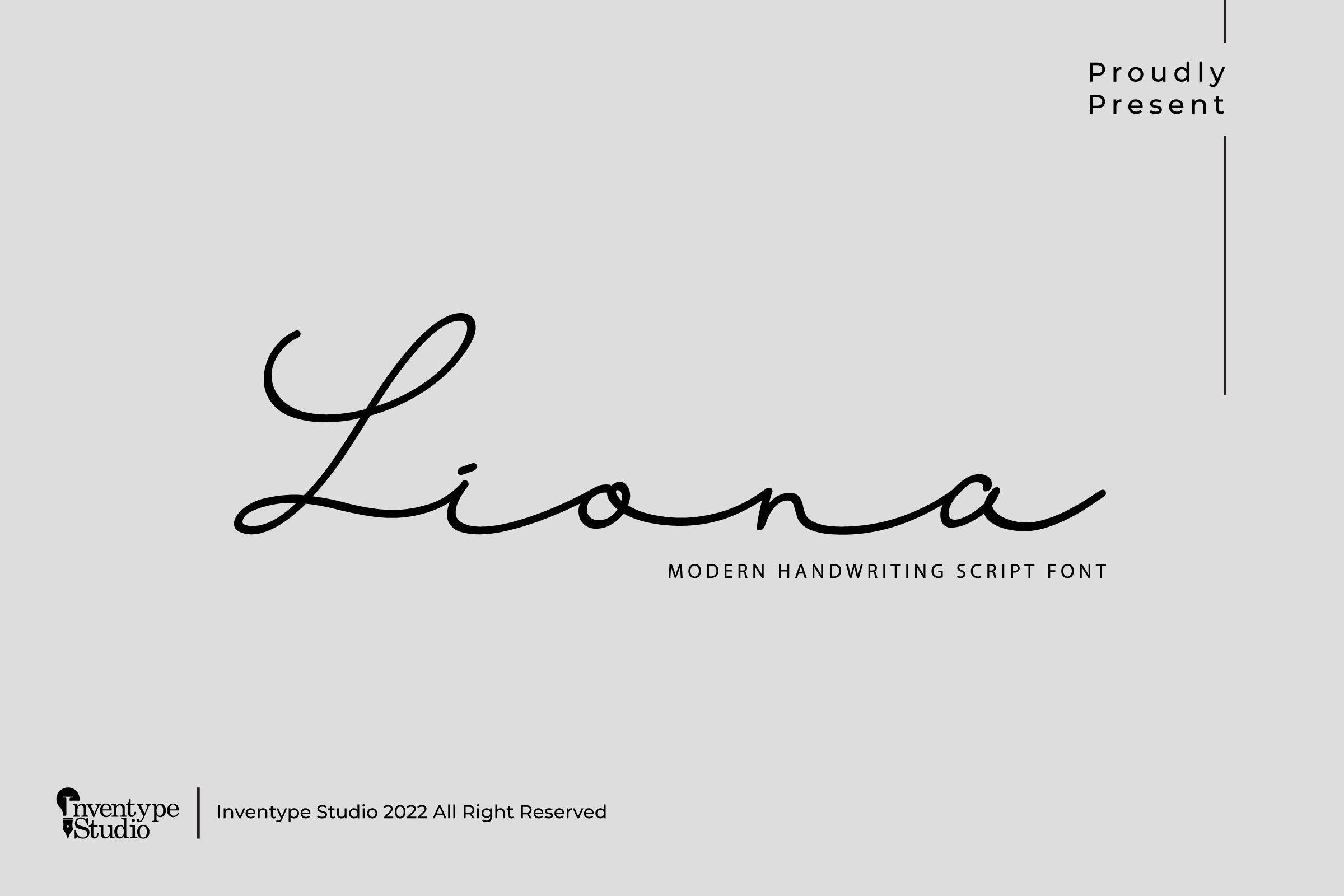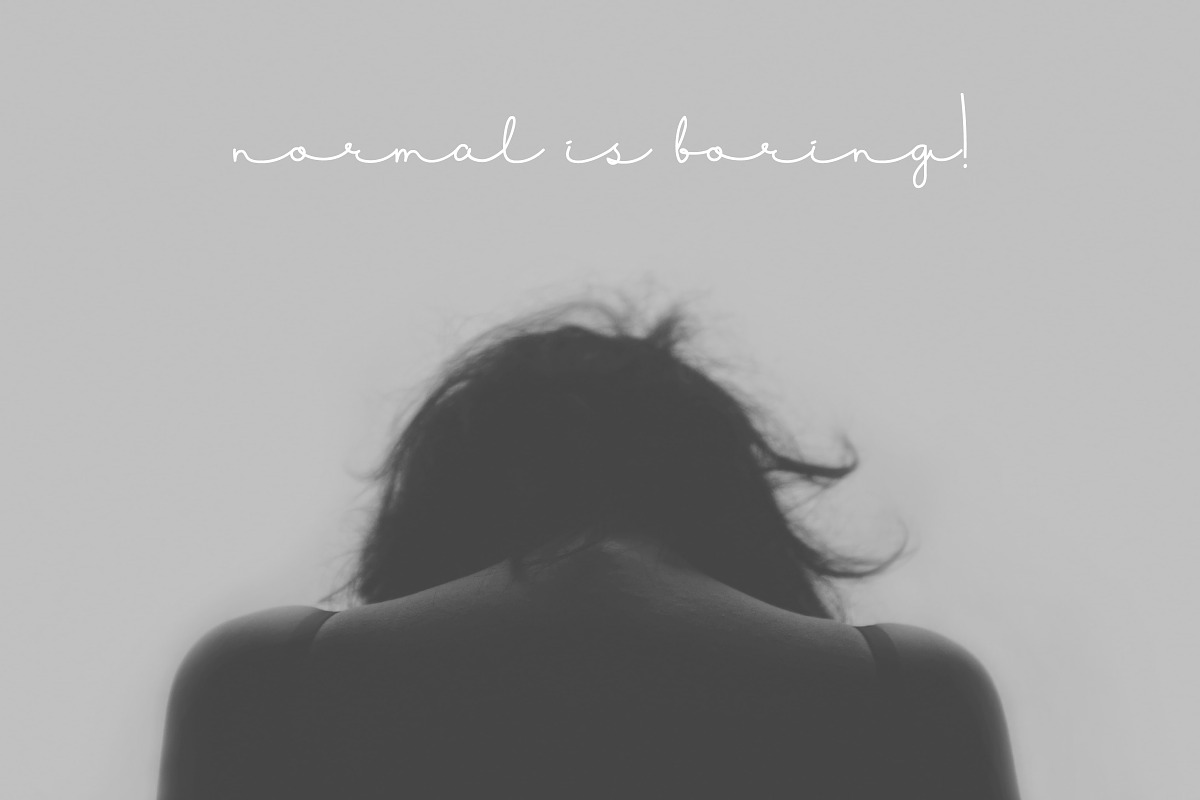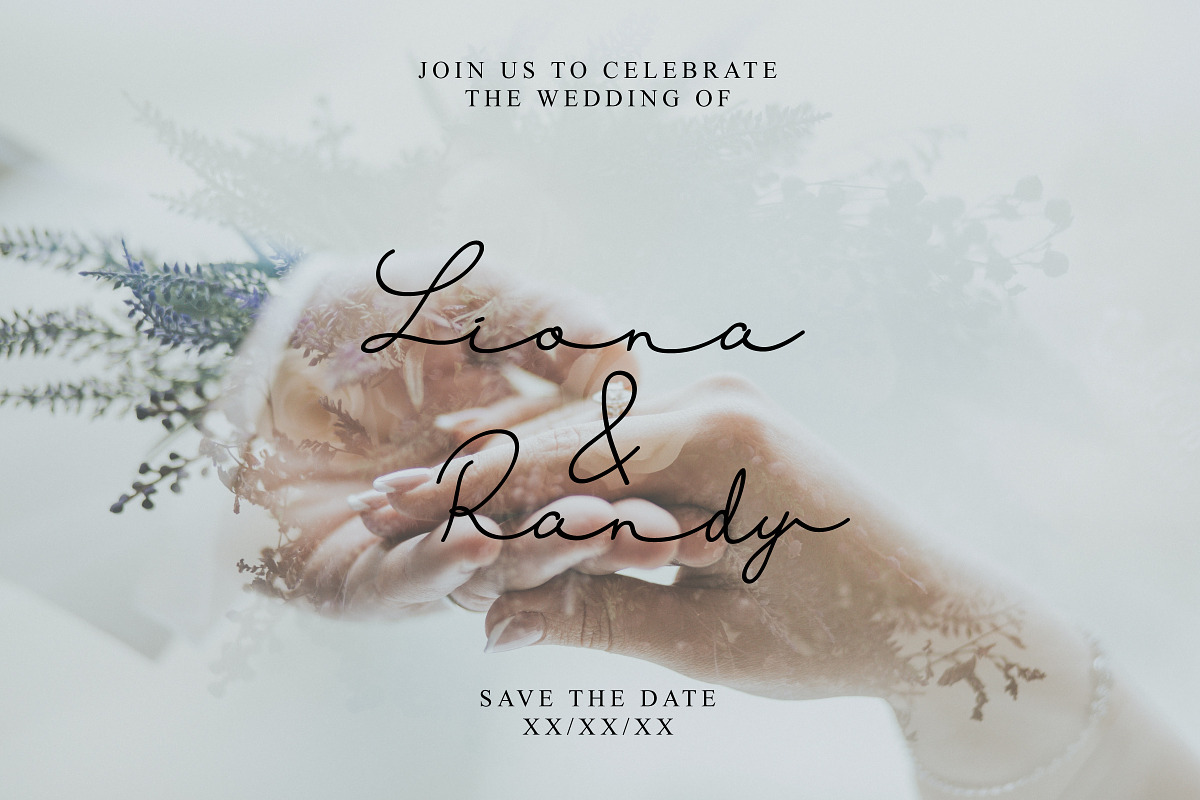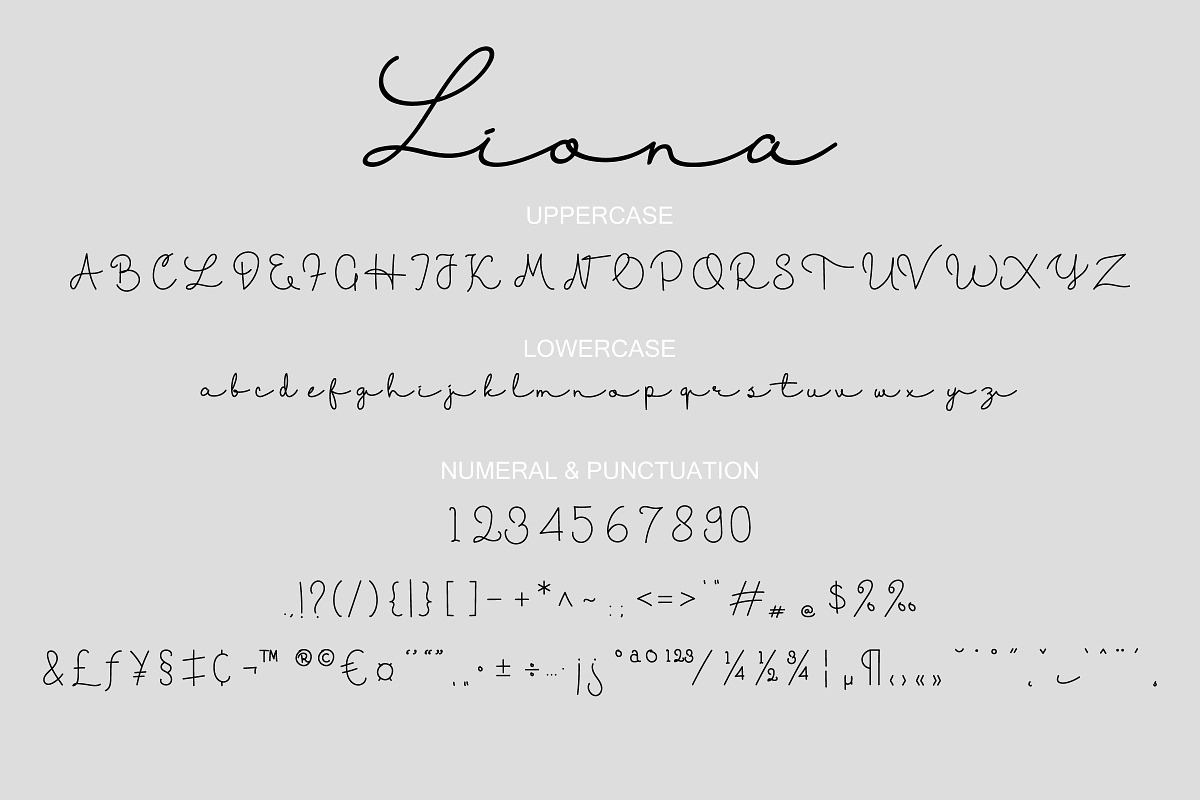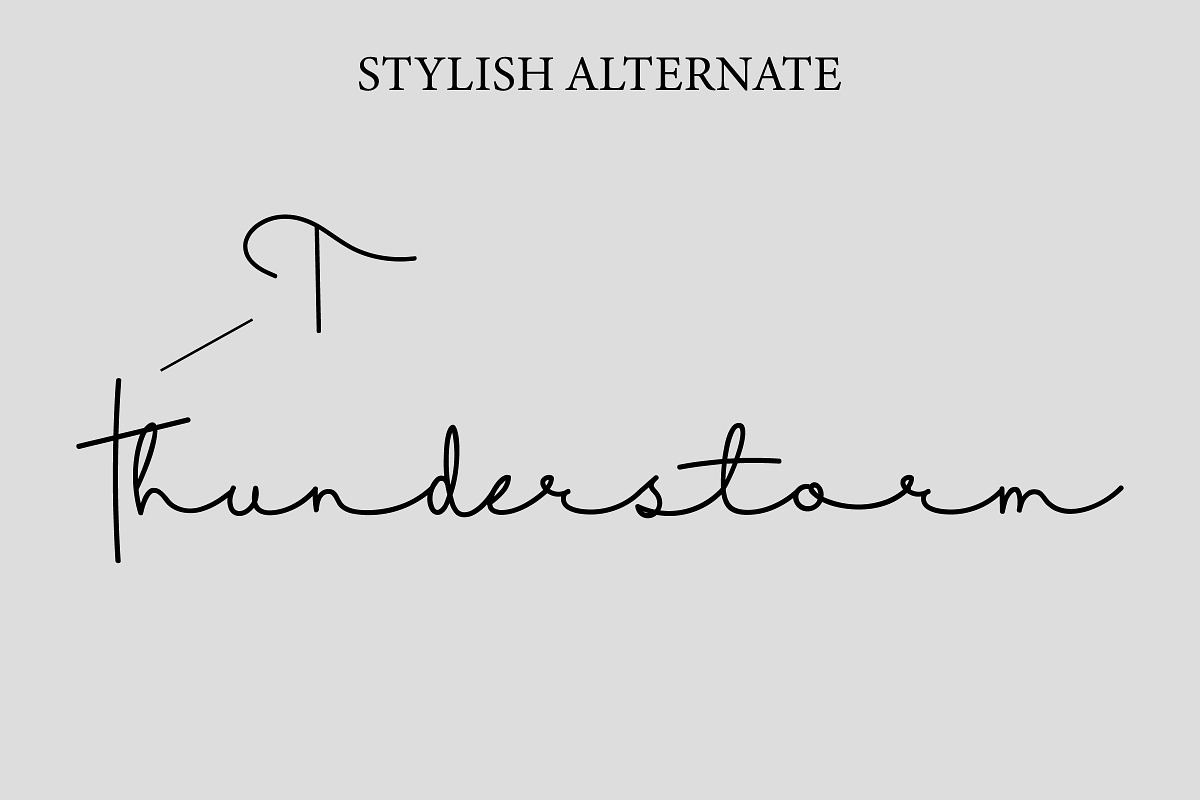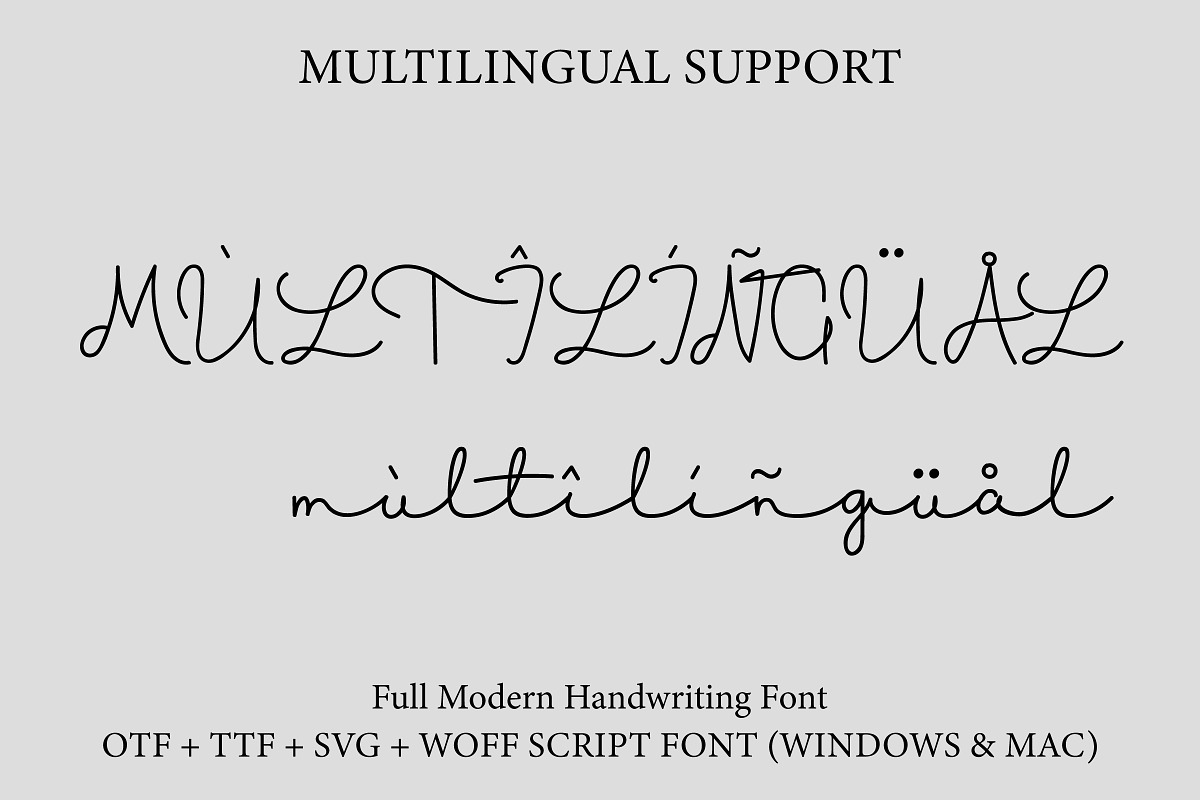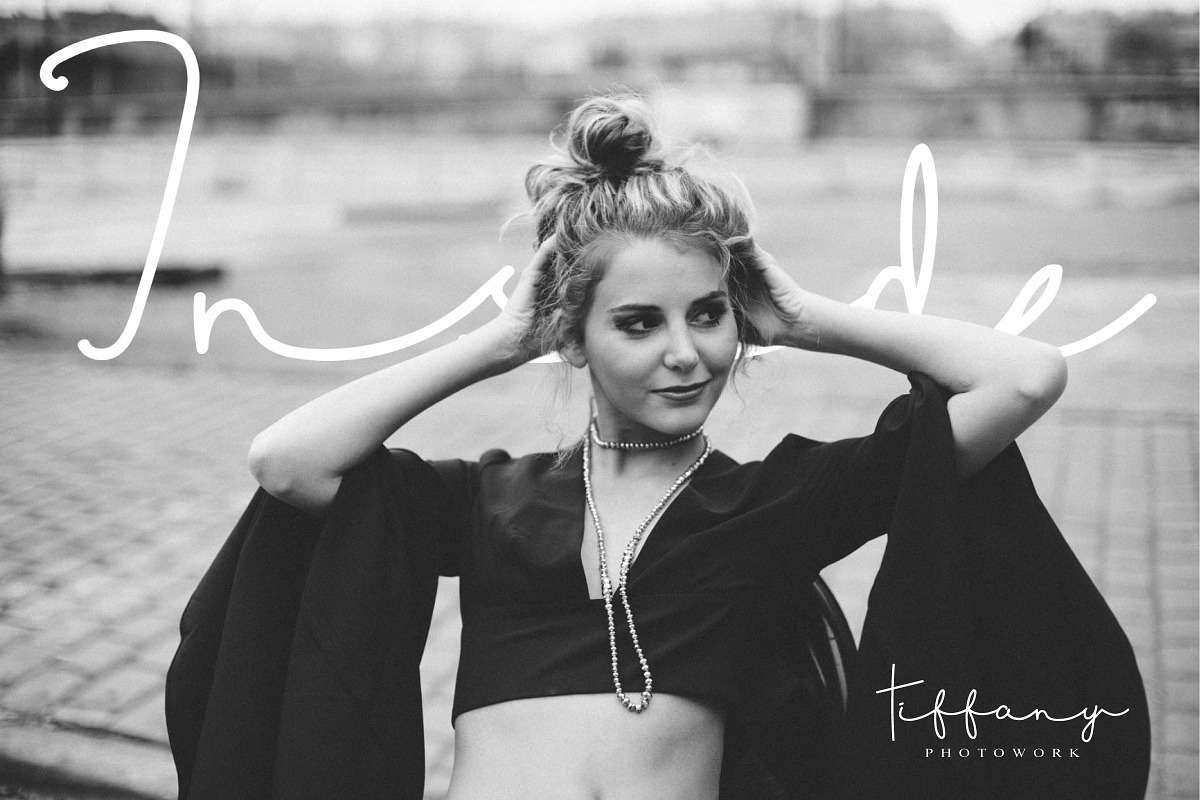
Liona - Longtail Wedding Font
Liona is a modern handwriting script font with a long tail style. This font was inspired by a fearless woman and her story behind. It will add a lovely look, fresh and strong look to any design project that you wish to create!
This font is suitable for use on photography, business cards, weddings, t-shirt designs, logos, magazines, quotes, fashion, watermarks, invitations, signatures, crafting.
- Stylish Alternate
- 4 Font Styles